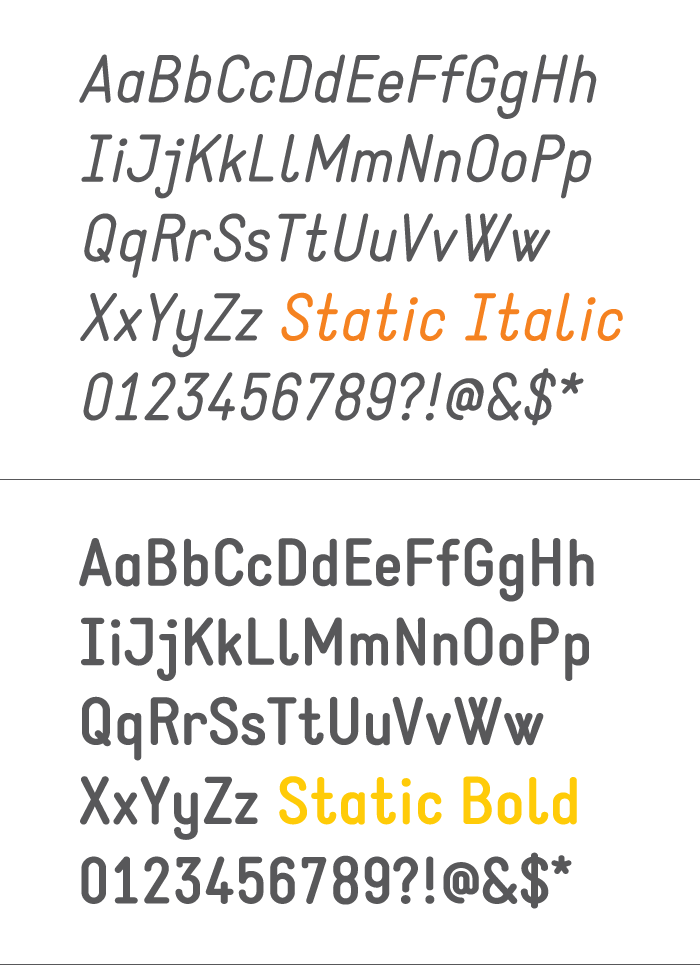
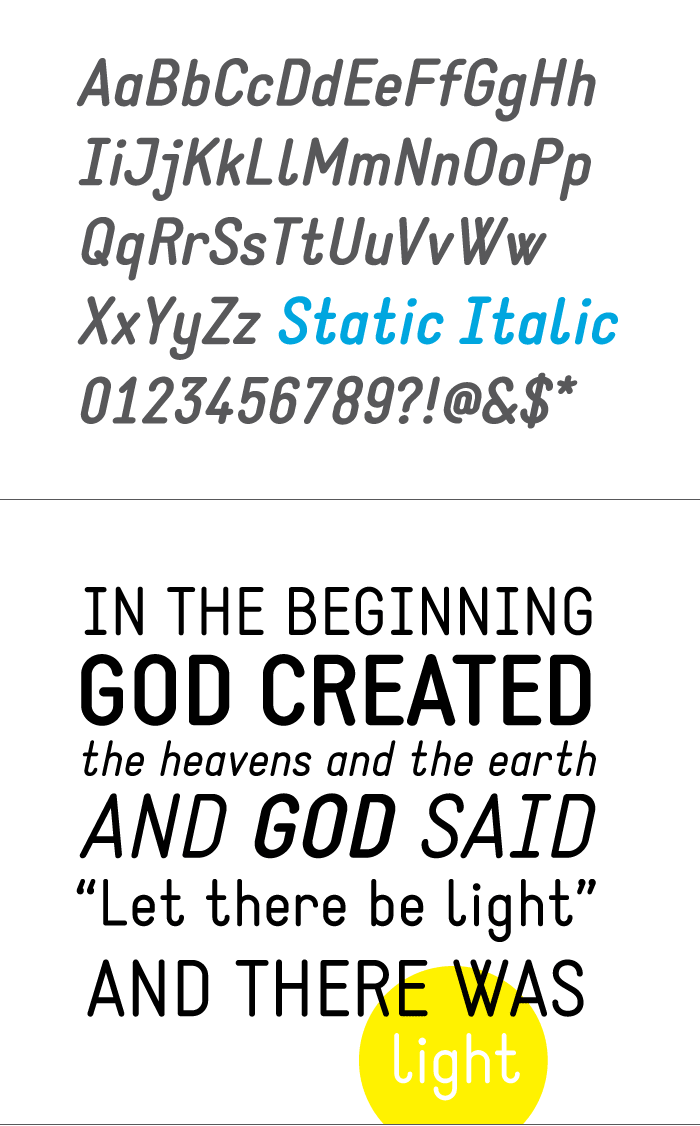
In These Types Of Fonts The Characters Are Designed And Digitized And Then Stored In Font Files.
Simply type or copy the normal text into the blank text field. Static is a robust font with bold, rounded serifs and is best used for headlines and short texts in point sizes of 12 and larger. Static is a robust font with bold, rounded serifs and is best used for headlines and short texts in point sizes of 12 and larger.
Whatthefont whatthefont forum whatthefont mobile learn. We have 6 free static fonts to offer for direct downloading · 1001 fonts is your favorite site for free fonts since 2001 Static is contemporary free font constructed with strong geometric forms in monospaced style.